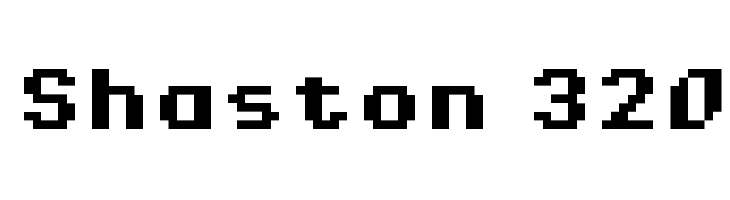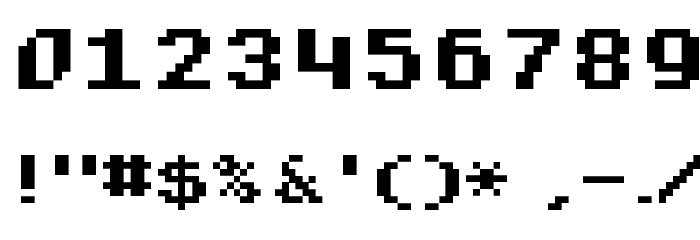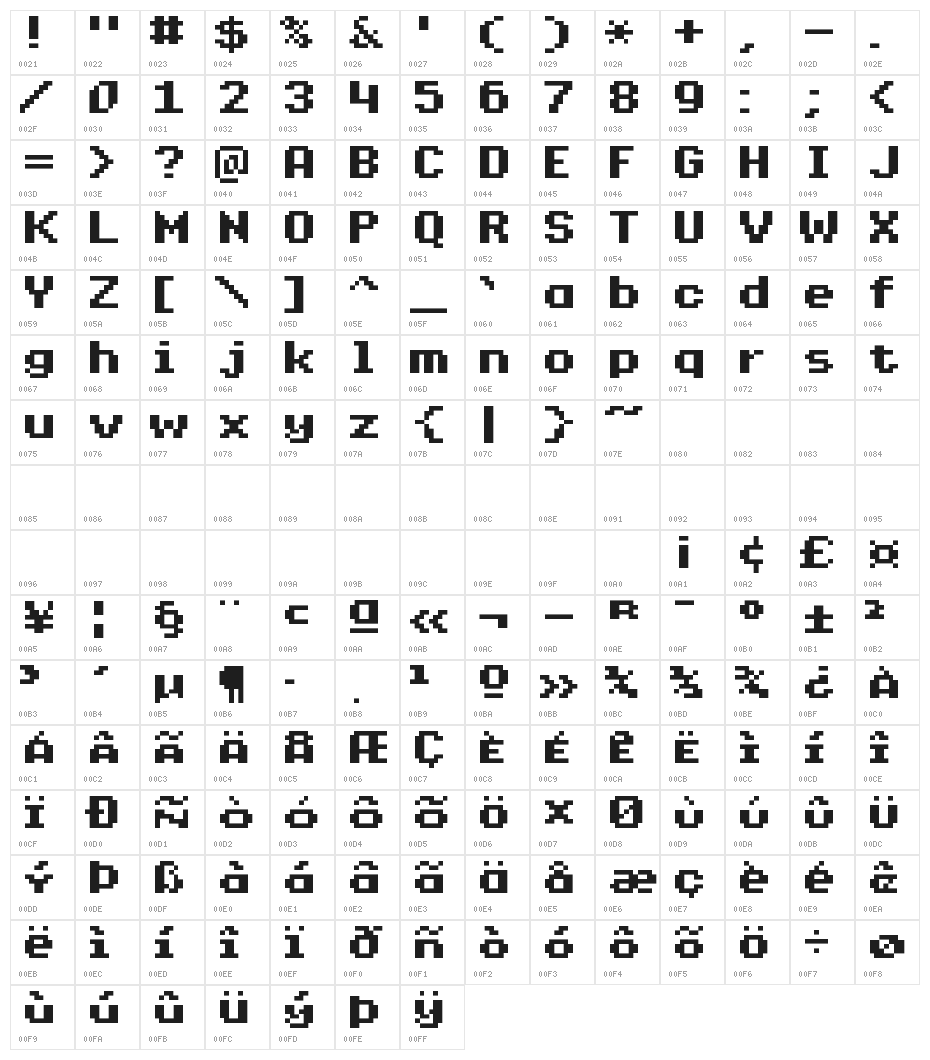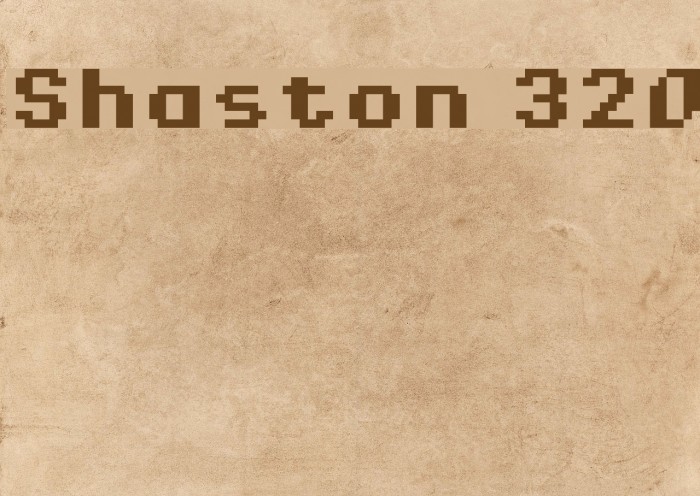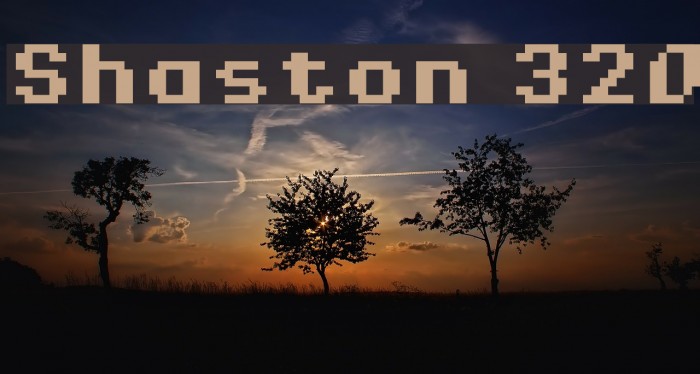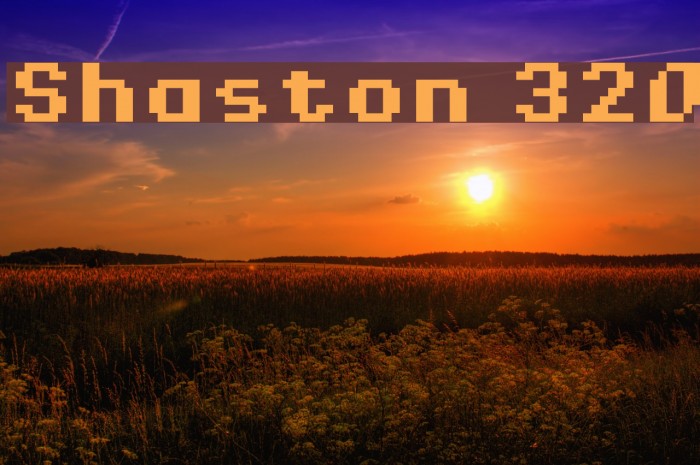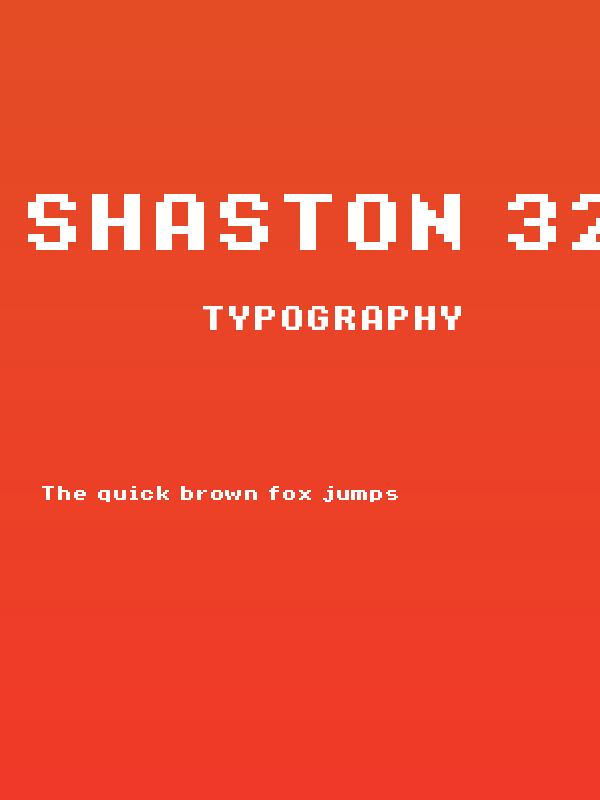
Shaston 320 Font
Shaston 320 Description
This font features a pixelated, blocky design reminiscent of early digital displays and retro video games. Each character is constructed with a uniform grid-like structure, giving it a distinctly digital and geometric appearance. The uppercase and lowercase letters maintain a consistent height, contributing to a monospaced feel. The numerals and special characters follow the same pixelated style, ensuring visual harmony across all elements. This font's nostalgic aesthetic makes it ideal for projects seeking a vintage or tech-inspired look.
| Use Case | Logos, Headlines, Digital displays |
| Proposed Projects | Ideal for retro video game designs, tech-themed posters, digital art projects, and nostalgic branding. |